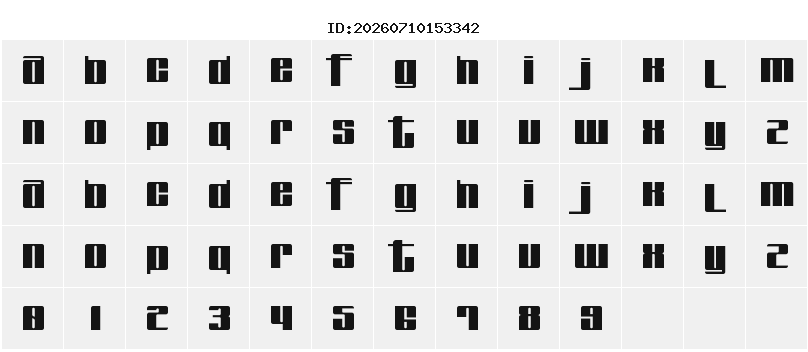
• Font Name: Fabulous
• Font Style: Teriffic
• Font ID: Fabulous
• Full Font Name: Fabulous
• PostScript Name: New
About Fabulous.ttf
Fabulous.ttf is a modern, elegant sans-serif font designed for ultimate readability and visual harmony. Perfect for branding, headlines, web design, and print materials.